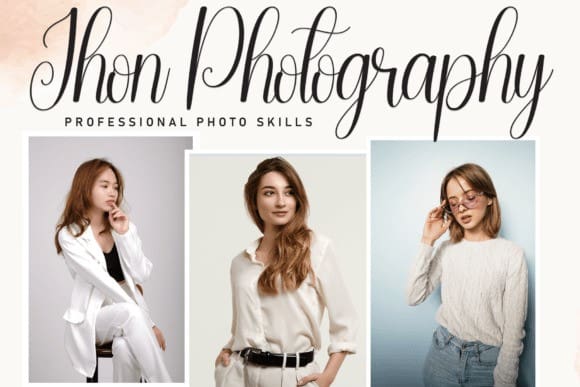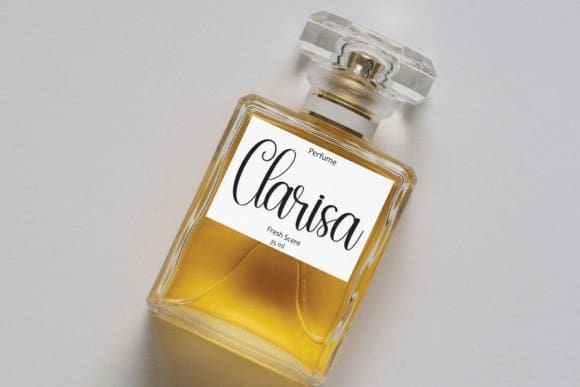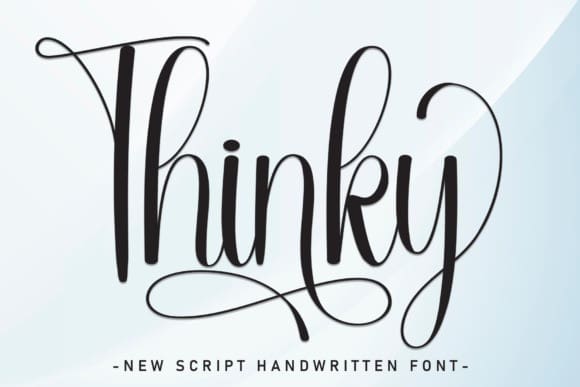
Thinky Script Font
Thinky Script Font is a sweet and friendly handwritten display font. Cute and fun, this font is ideal for writing wedding invitations, cards, or any other design that might need a fun touch!